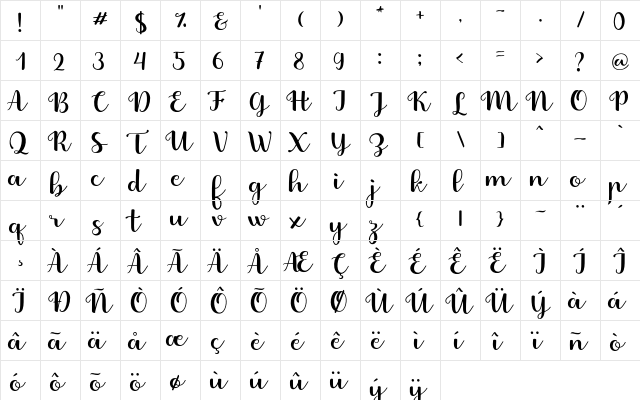
Fabitha Script Regular
| Foundry | Apon & Stipline Co. |
| Designer | Teuku Bahraini |
Design Context for Fabitha Script Typeface
Fabitha Script flows with the natural rhythm of handwritten lettering, making it ideal for designs that call for warmth and personal expression.
Font Pairing: Combine Fabitha Script with a simple geometric sans for maximum contrast — the tension between flowing curves and clean structure is a classic typographic pairing.
Pro Tip: Pair Fabitha Script with a clean sans-serif for supporting text. The contrast between fluid script and geometric structure creates an elegant typographic hierarchy.